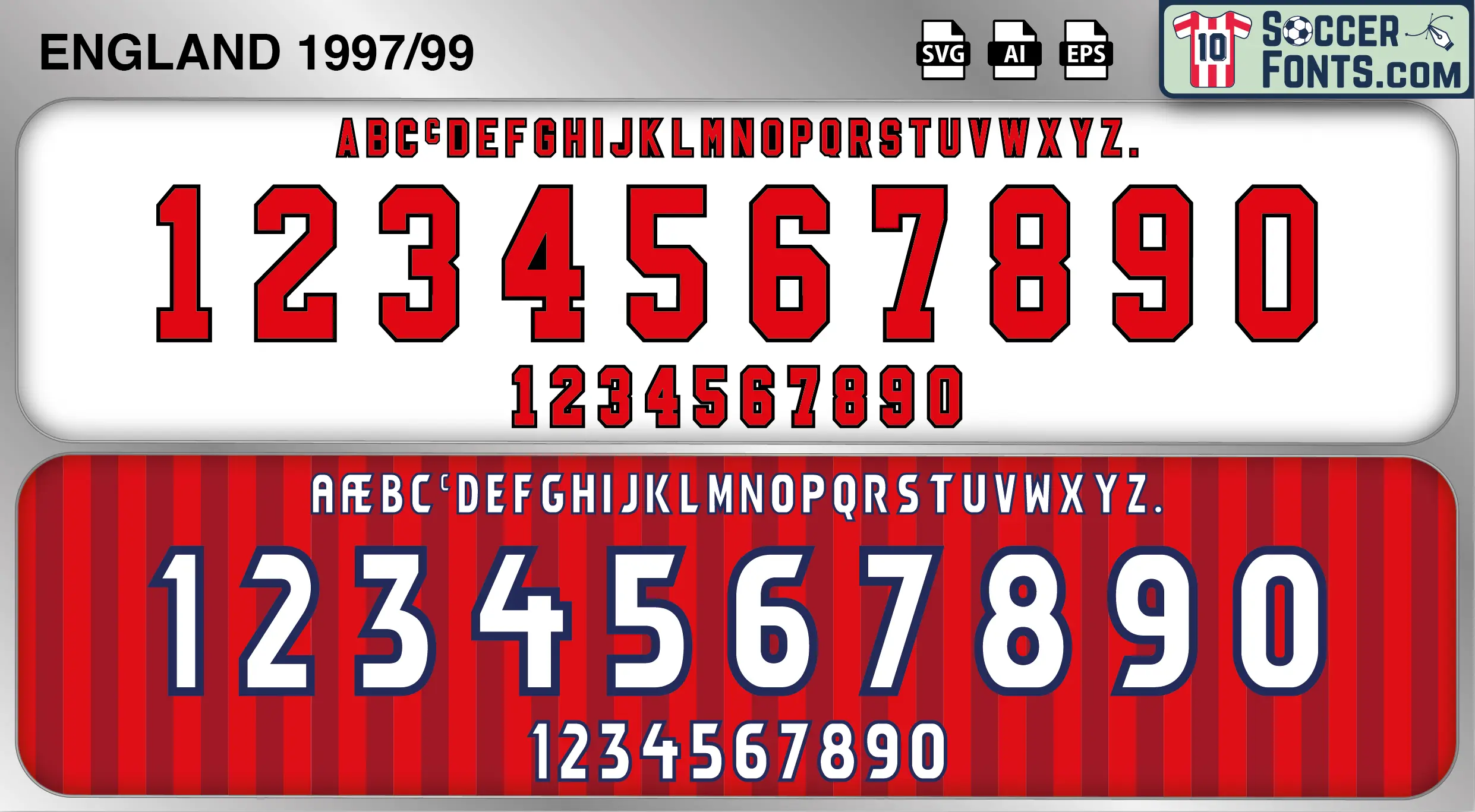
England 1997-99 Font
The England 1997-99 font is an editable soccer jersey lettering design in vector format inspired by the England kit style used during the 1997-99 football seasons. This football font artwork is prepared for football shirt recreations, custom jersey projects, football kit mockups and sports graphic design workflows.
The 1997-99 period centered around England’s participation in the 1998 FIFA World Cup in France and featured one of the most talented generations of English footballers of the modern era. Players such as David Beckham, Michael Owen, Alan Shearer, Paul Scholes, Sol Campbell and Tony Adams represented a squad filled with both established stars and exciting young talent. The tournament produced several memorable moments, including Michael Owen’s famous goal against Argentina and one of the most dramatic knockout matches of the World Cup. The era also coincided with the growing international popularity of the Premier League and English football culture.
The England 1997-99 font became associated with the 1998 World Cup and the emergence of a new generation that would shape English football for years to come. England shirts from this period remain highly collectible because of their connection with Beckham, Owen and one of the most memorable World Cup campaigns in the nation’s modern history. The England 1997-99 font reflects a period when expectations, talent and football culture combined to create one of the most recognizable eras in the history of the England national team.